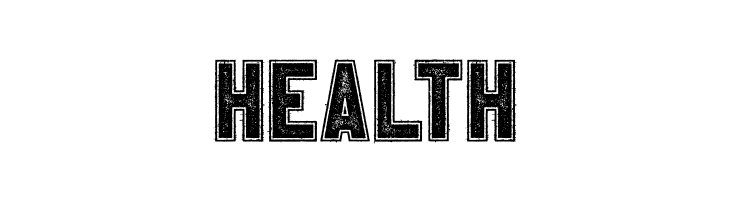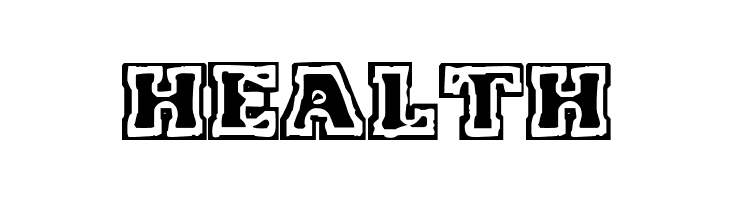
Bold, outlined font with a strong, three-dimensional appearance.
A bold, slab serif font with a strong, geometric design ideal for impactful displays.
A bold, distressed collegiate-style font with a vintage feel.
A bold, collegiate-style font with a strong, outlined presence.
A bold, collegiate-style font with an outline and shadow effect.
A bold, collegiate-style font with outlined, block-like characters.
A bold, outlined font with a playful, collegiate style.
A bold, collegiate slab serif font with outlined characters and strong serifs.